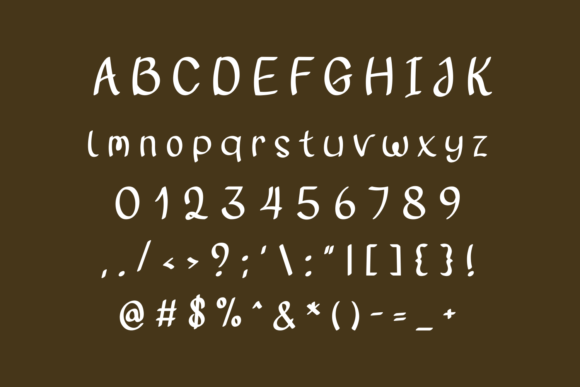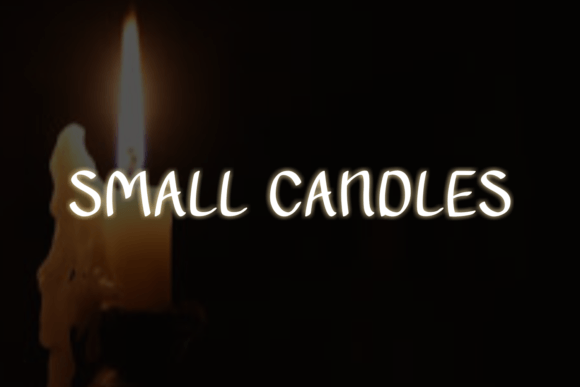
Borgat Font – Free Download
Introduction to Borgat Font
Borgat is a cool and unique sans serif font.
| ๐ค Author | lelevien |
Key Features of Borgat Font
Why Choose Borgat Font?